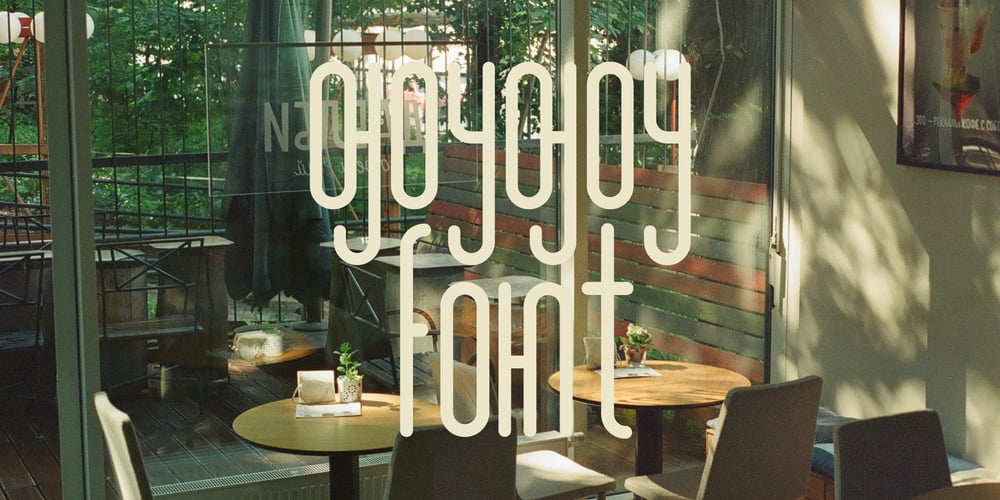
Goygoy Font Family was designed by Ali Güzel and published by Ali Güzel. Goygoy contains 1 styles and family package options. It is a font that combines futurism and elegance. It is specially designed for logo font creation.